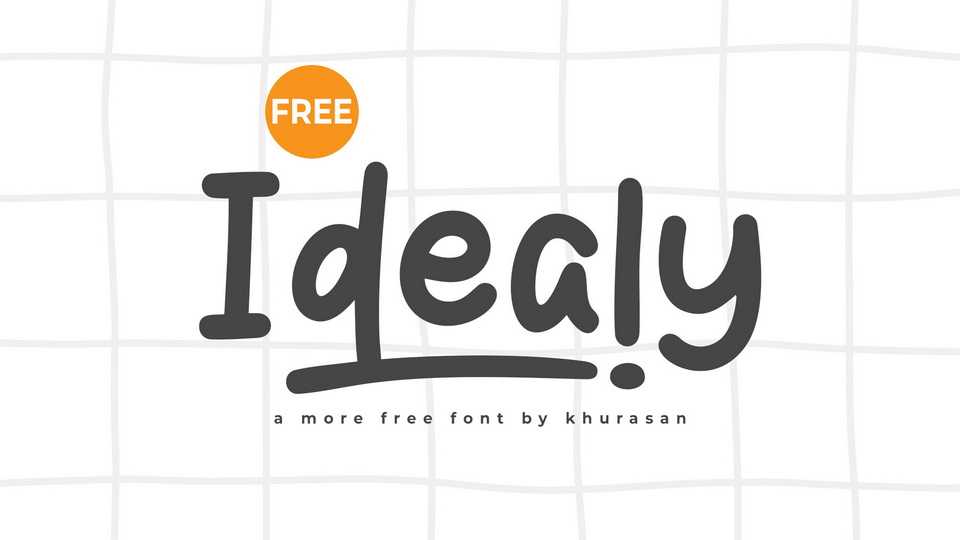
Download Idealy font, a natural and organic hand-drawn typeface that captures the beauty of handwritten lettering with its soft strokes and subtle imperfections.